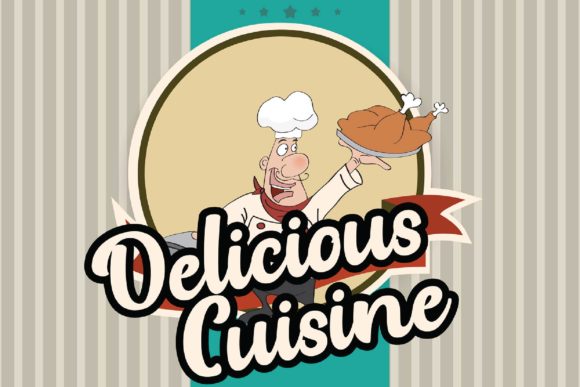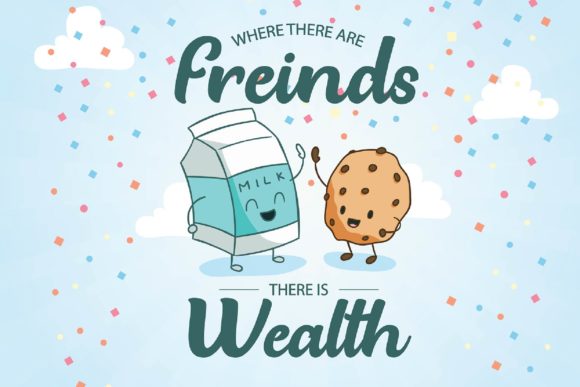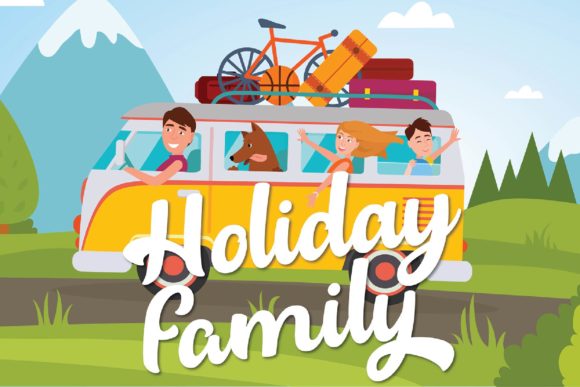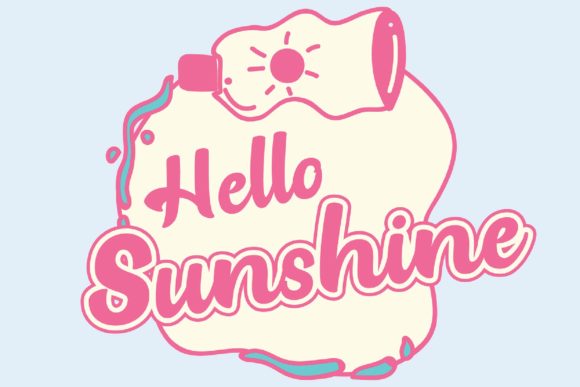
The Ultimate Beach Party Font Guide: Adding a Cool Vibe to Your Designs
I’ll never forget the summer I was tasked with creating a beach-themed wedding invitation for a friend’s big day. As I scrolled through font after font, nothing seemed to capture the carefree, sunny essence of a beach party. That was until I stumbled upon the Beach Party font – a fun, playful, and incredibly cheerful script with a cool vibe! 🌴
An Honest Review of Beach Party Font
What I Love About Beach Party Font
- ✨ The casual, handwritten feel that screams summer fun
- ✅ Easy to read, even at smaller font sizes
- 💃 Perfect for creative projects that need a playful touch, like party invitations, beach-themed crafts, or summer-themed social media graphics
- 🎉 The font comes with a range of OpenType features, including stylistic alternates and glyphs, which allow for even more customization
While Beach Party font is amazing for most projects, there are a few things to keep in mind:
- ⚠️ It may not be the best choice for very formal or professional designs, as it can come across as too casual
- 🤔 Some of the more intricate details can get lost at very small font sizes
The Story Behind Beach Party Font
While the exact origins of Beach Party font are unclear, it’s likely that it was designed with the intention of capturing the carefree spirit of a summer beach party. The font’s creator might have been inspired by the handwriting of beachgoers on signs, posters, or even sand art. Whatever the inspiration, the result is a font that’s perfect for adding a cool vibe to your designs.
Q: What type of projects is Beach Party font best suited for?
A: Beach Party font is ideal for creative projects that need a playful touch, such as party invitations, beach-themed crafts, or summer-themed social media graphics.
Q: Is Beach Party font available in different weights or styles?
A: The availability of different weights or styles for Beach Party font depends on the specific font package. Some versions might offer variations like bold or italic, while others might be a single weight.